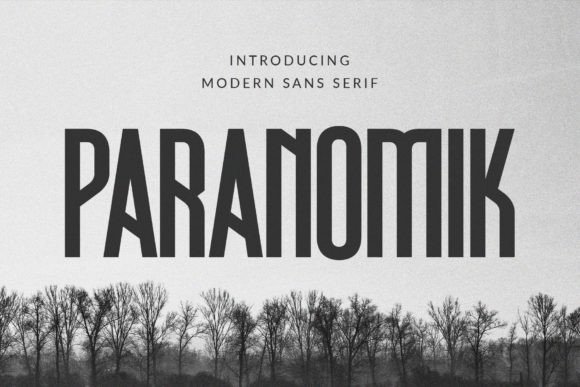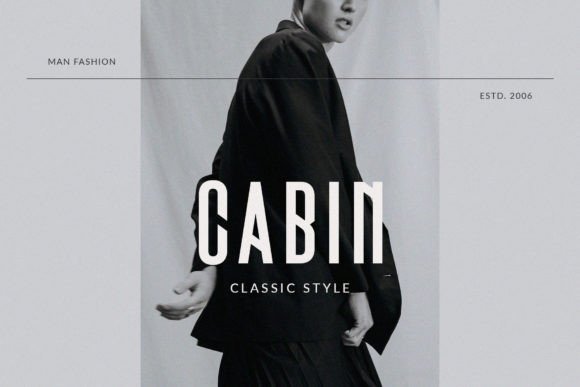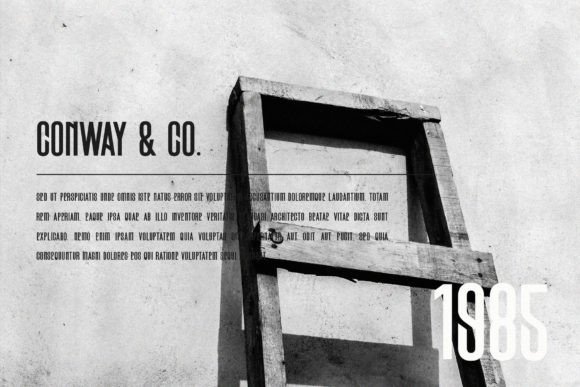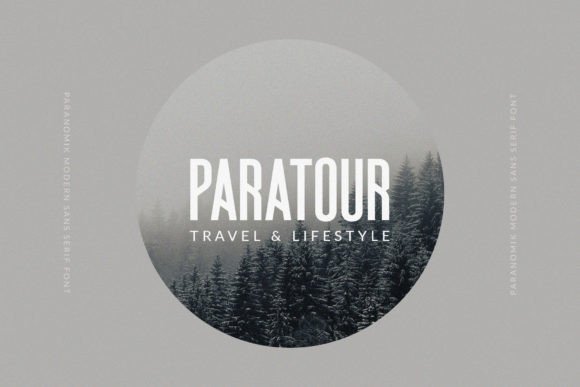
Paranomik Font: Modern Sans Serif for Logo Design & Branding Kits
About the Paranomik Font
Get ready to be inspired by Paranomik Font, a fresh and dynamic typeface for modern creators. Paranomik is a modern and classy sans serif typeface, best used as a display for headings, logos, branding, magazines, product packaging, and invitations. Paranomik comes with clean lines and smooth curves, giving any project an extra touch of class.
Its strong yet refined forms make Paranomik ideal for branding projects requiring a sophisticated and memorable logo, as well as high-impact headlines and short-form text on posters or packaging. Avoid using it for large blocks of body text or UI elements; its elegant design isn’t optimized for readability in extended passages.
Paranomik’s modern personality pairs well with both classic and contemporary fonts. Consider pairing it with a clean serif like Garamond for a touch of traditional elegance, or a geometric sans-serif like Futura for a more streamlined, minimalist aesthetic. A script font like Playfair Display could add a touch of handwritten warmth to a logo design.
The overall effect of Paranomik is one of confident modernity, suggesting a brand that values quality, sophistication, and a subtle sense of luxury. It’s well-suited for products and services in the fashion, beauty, and high-end lifestyle sectors.
Paranomik Font Usage Examples
Paranomik Font Example